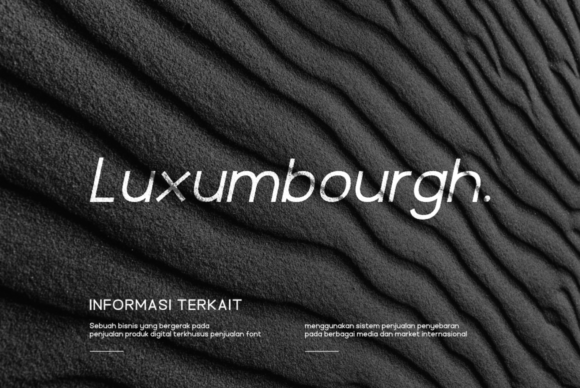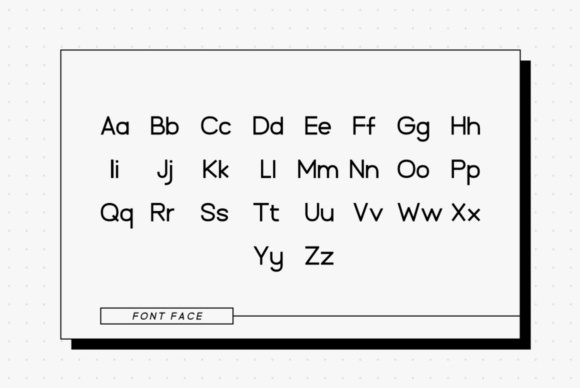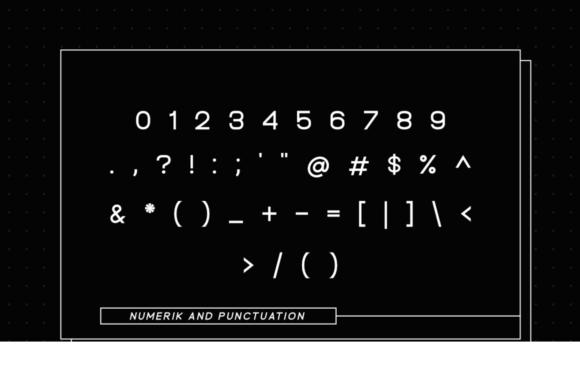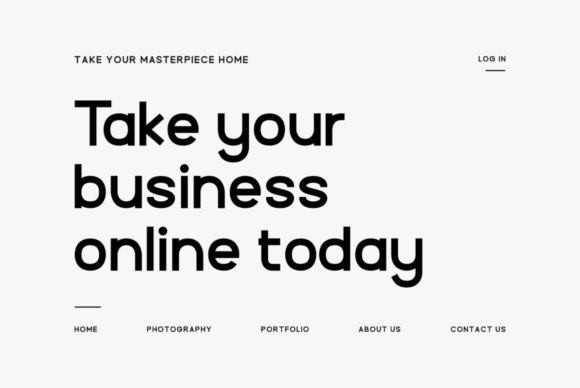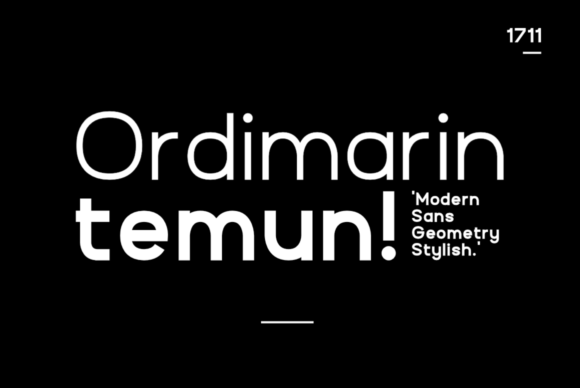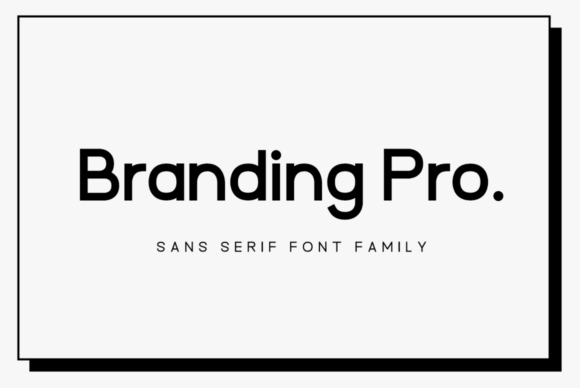
The Power of Branding Pro: A Minimalist Font for Creative Projects
I’ll never forget the design struggle I faced while working on a branding project for a trendy coffee shop. My client wanted a modern, clean look that would appeal to the young and hip, but I was stuck on finding the perfect font. That was until I stumbled upon Branding Pro, a minimal and neat sans serif font that instantly elevated my design game. In this article, I’ll share my experience with Branding Pro, its features, and how to make the most of it in various design platforms.
An Honest Review of Branding Pro
What I Love About Branding Pro ✨
• ✅ Versatility: Branding Pro can easily be matched to an incredibly large set of projects, making it a great addition to any design library.
• ✅ Clean and Minimalist: Its sans serif design makes it perfect for modern and sleek branding projects.
• ✅ Ease of Use: The font is easy to read and works well in various sizes, from headings to body text.
• ✅ High-Quality: Branding Pro is a high-quality font designed with precision and attention to detail.
• ⚠️ Limited Extras: Branding Pro may not come with a wide range of extra features or styles, but its simplicity is part of its charm.
• ⚠️ Not Suitable for All Niches: While it’s versatile, Branding Pro might not be the best fit for very traditional or ornate design projects.
3. Take advantage of OpenType features, glyphs, and stylistic alternates to add variety to your text.
Branding Pro supports OpenType features, which allow for advanced typographic control. You can access:
• Stylistic Alternates: Swappable characters for varied text styles.
• Glyphs: Additional characters and symbols to enhance your design.
The Backstory of Branding Pro
Branding Pro was created with the goal of providing a simple yet powerful font for creative professionals. Its designer aimed to craft a font that would be both versatile and timeless, suitable for a wide range of projects. While the exact details of its creation are not publicly known, it’s clear that Branding Pro has become a go-to font for many designers.
What type of projects is Branding Pro best suited for? Branding Pro is versatile and can be used for a wide range of projects, including modern branding, digital marketing materials, and editorial design.
Does Branding Pro support OpenType features? Yes, Branding Pro supports OpenType features, including stylistic alternates and glyphs.
Is Branding Pro available in different weights? Branding Pro comes in various weights, allowing for flexibility in your design work.